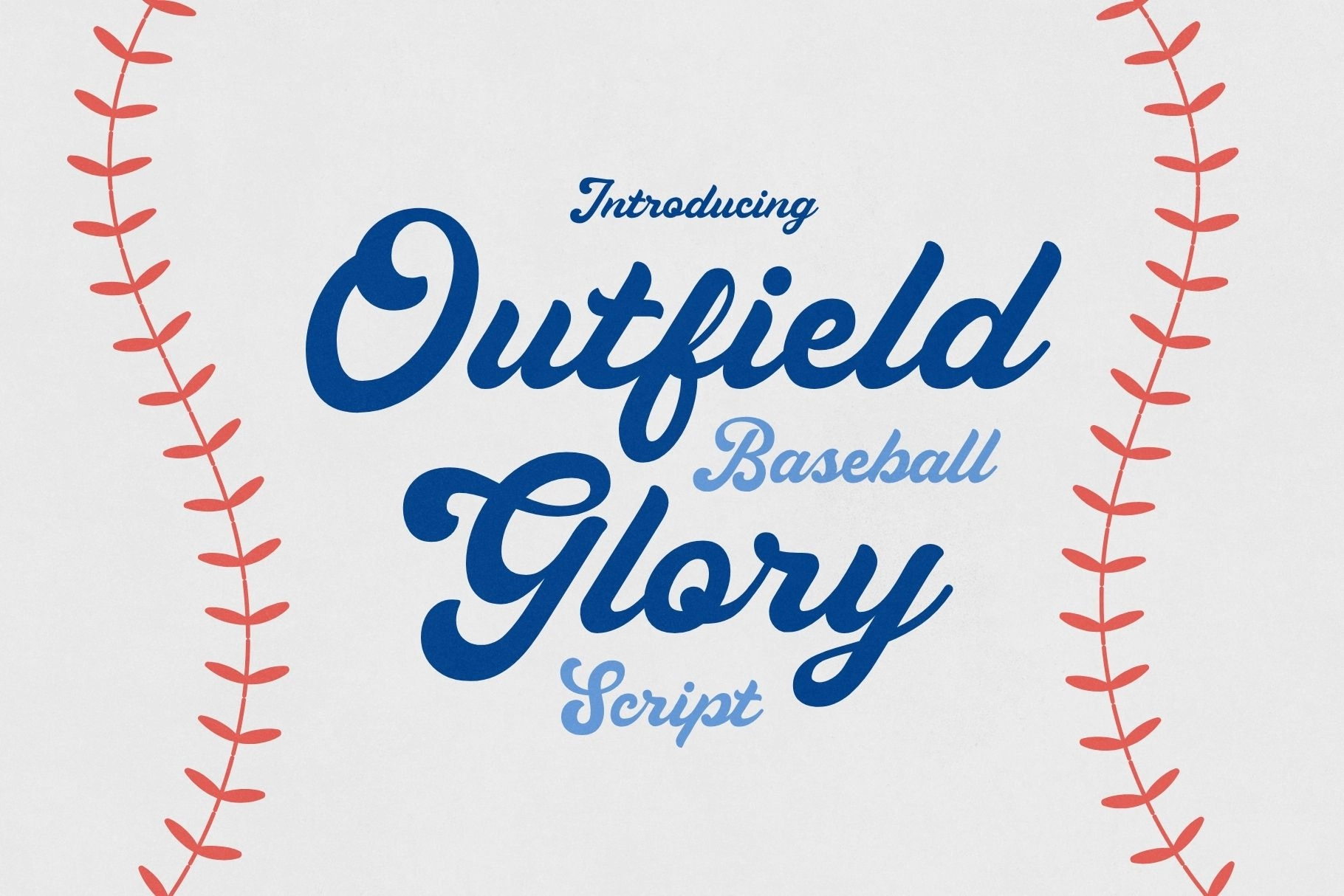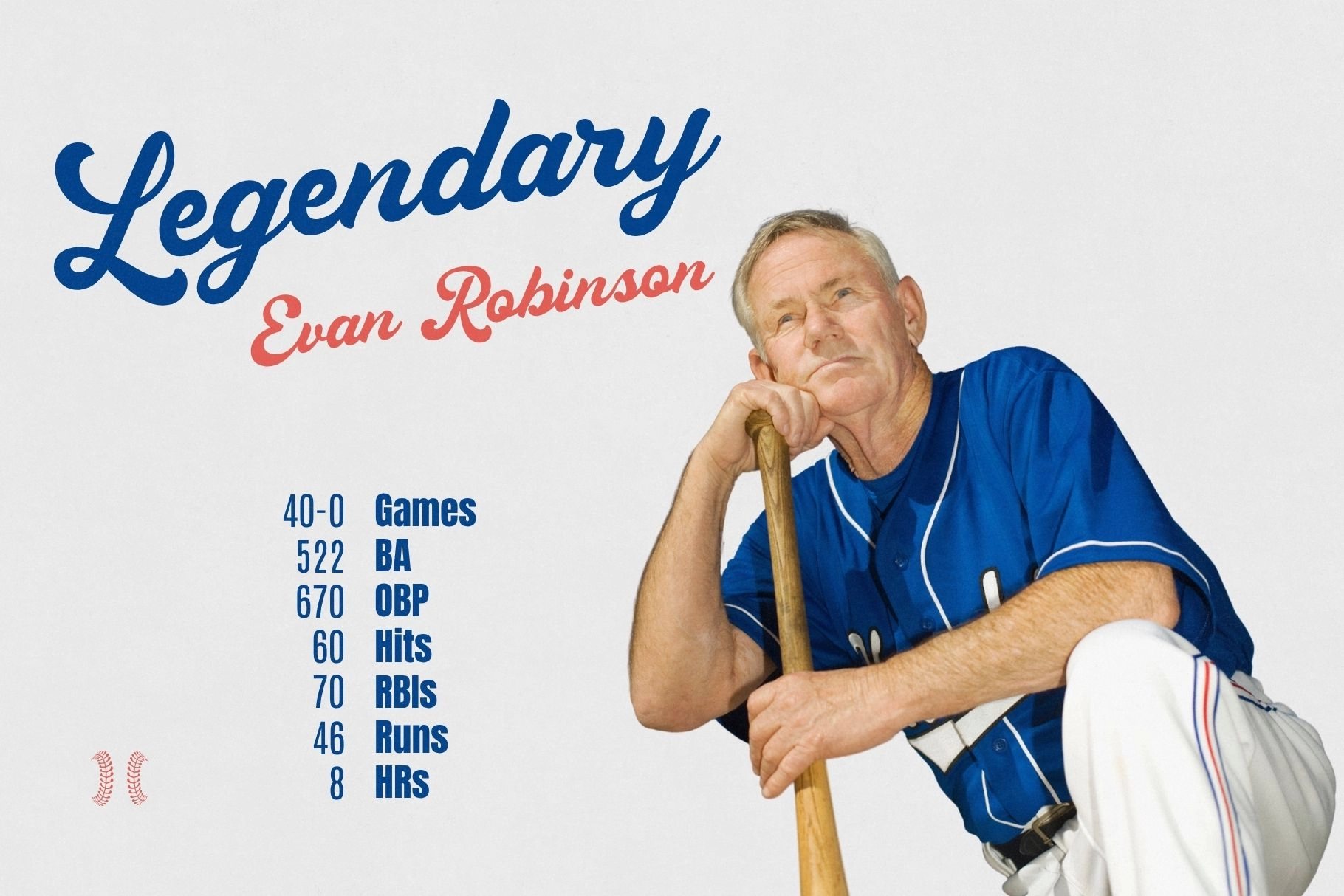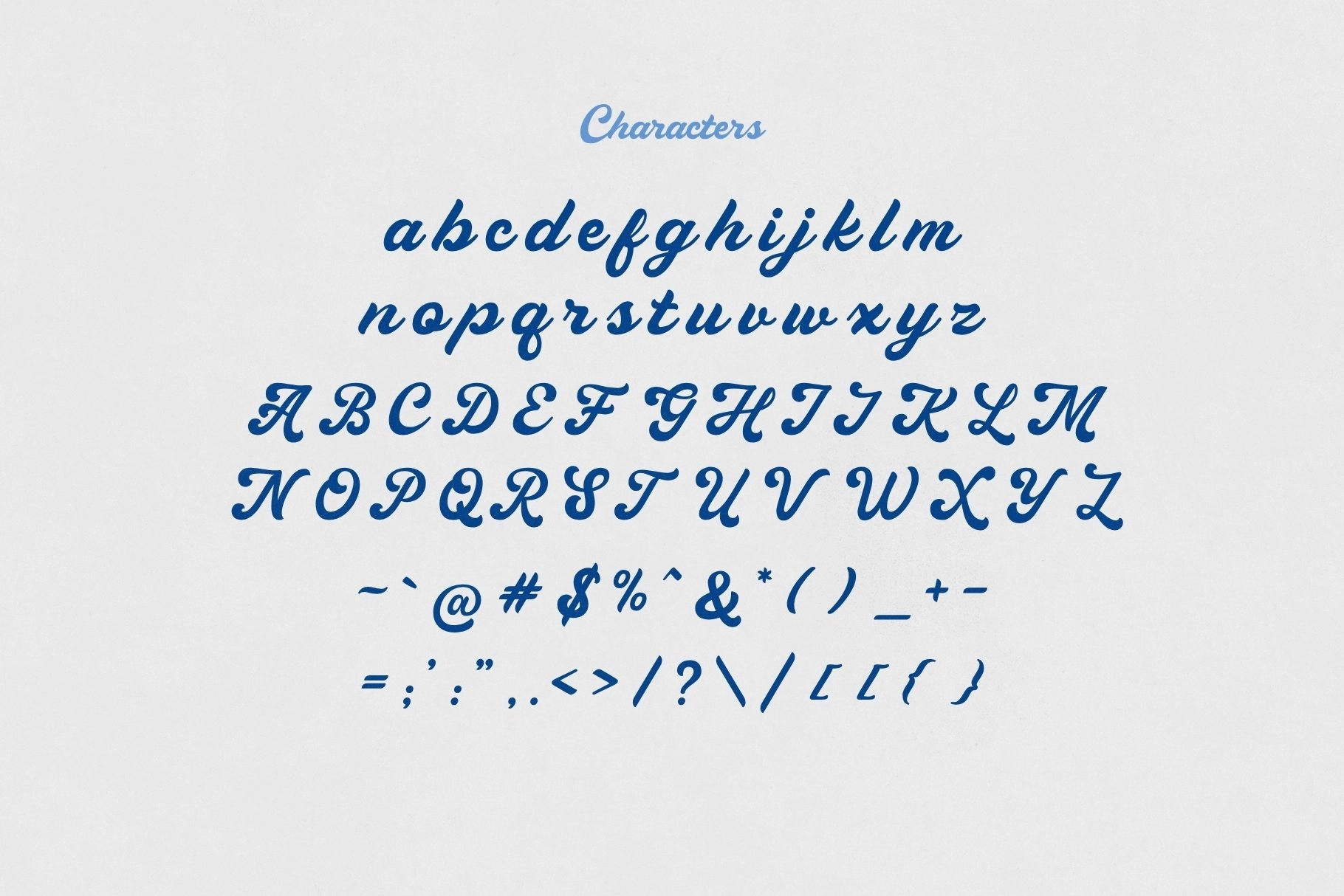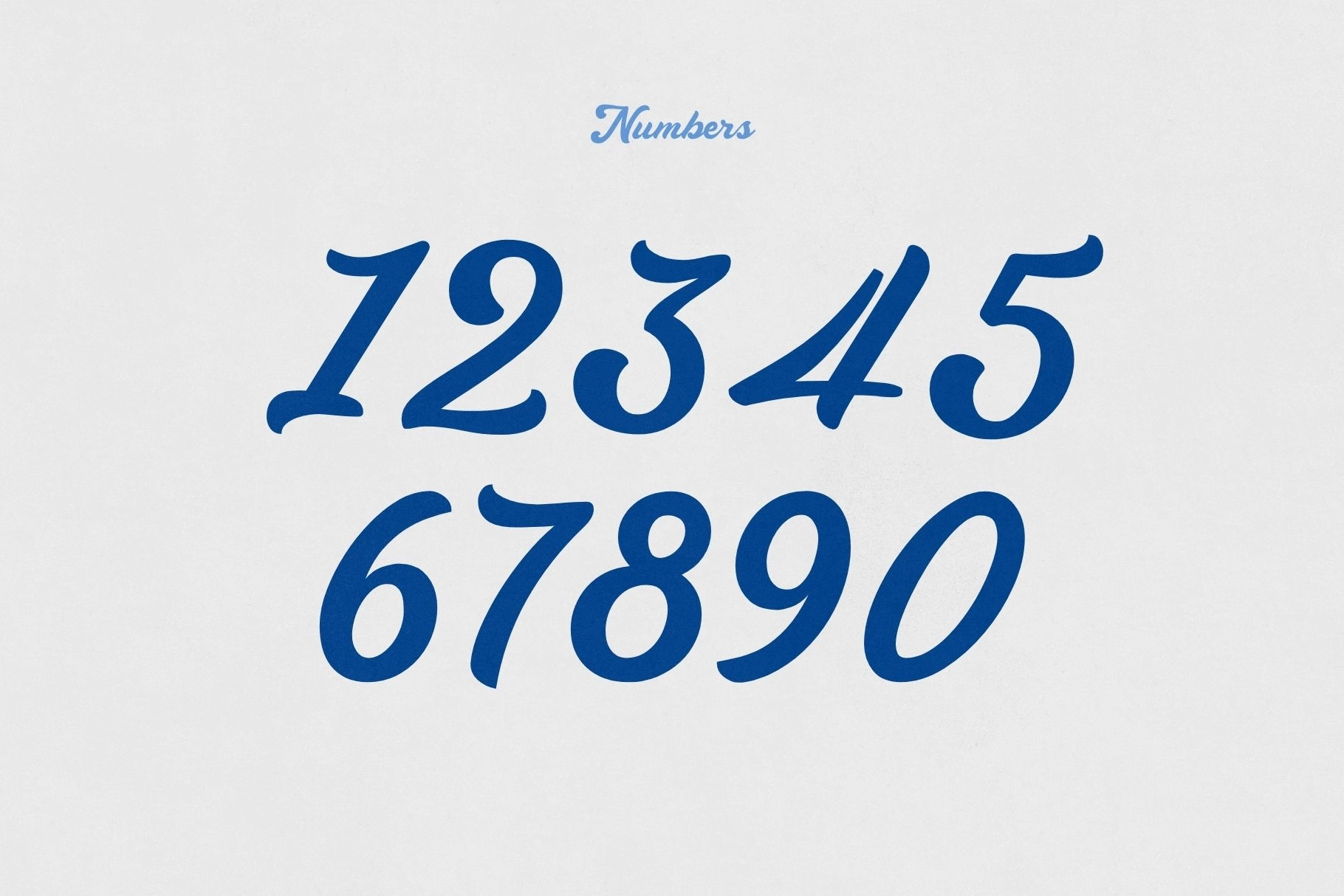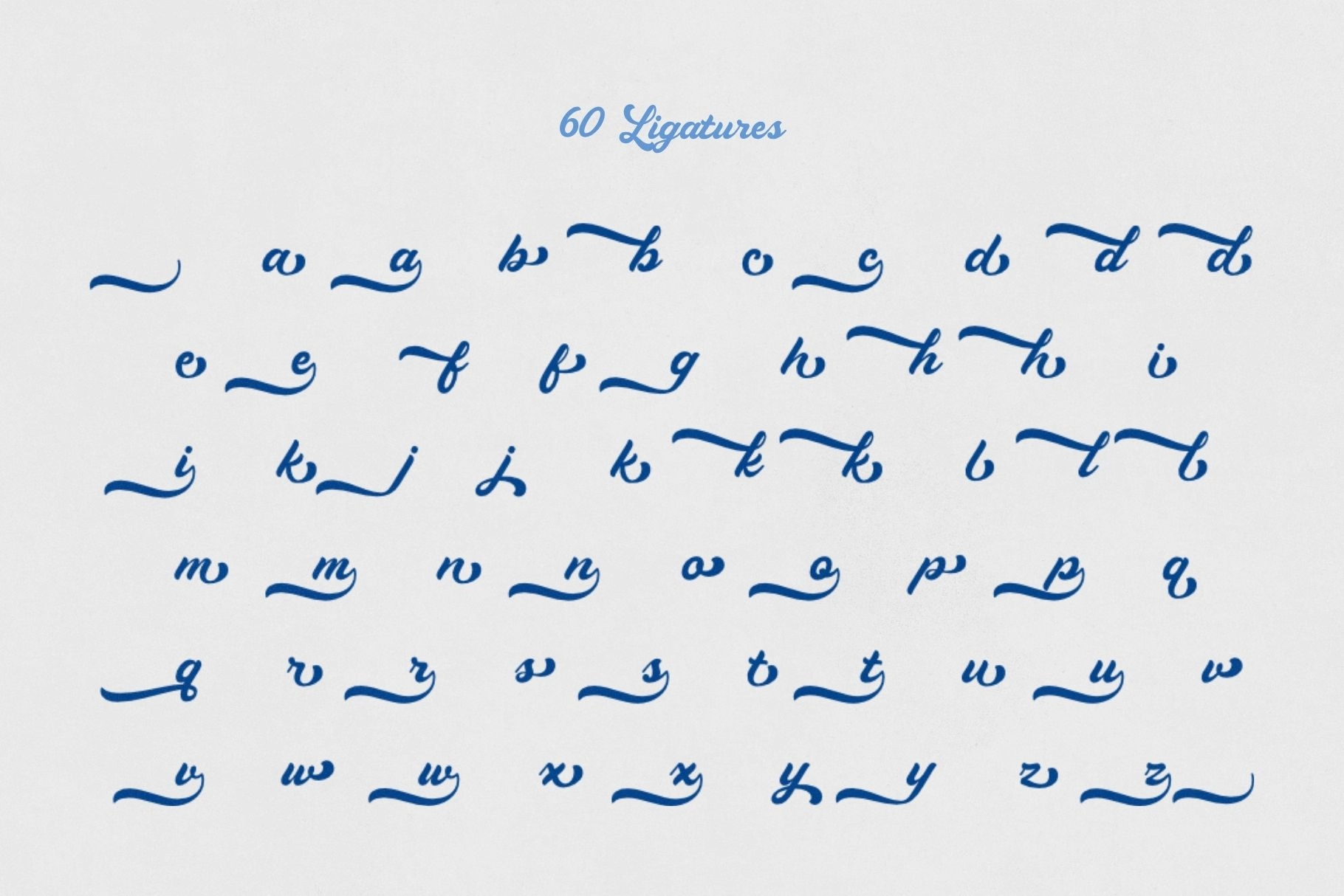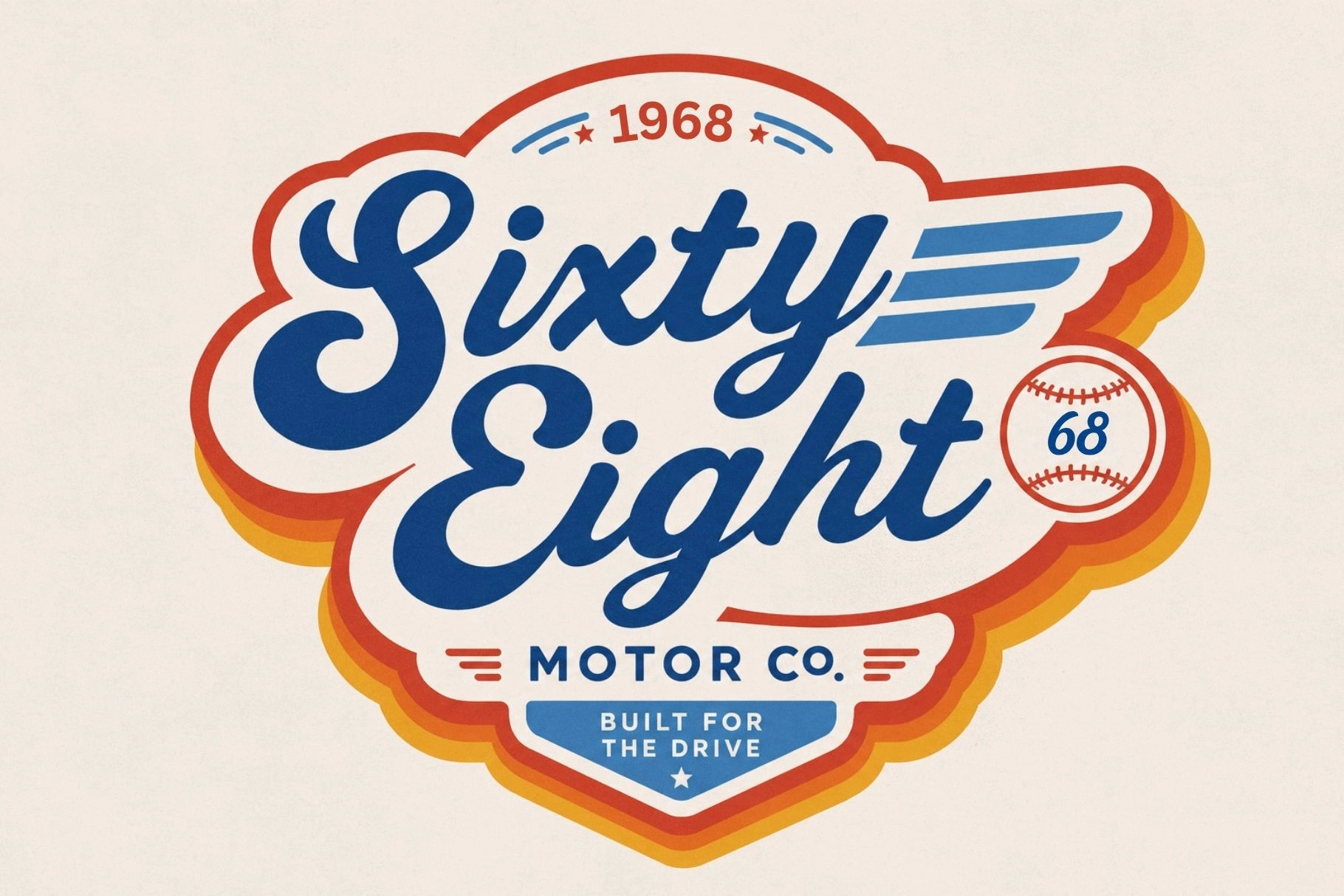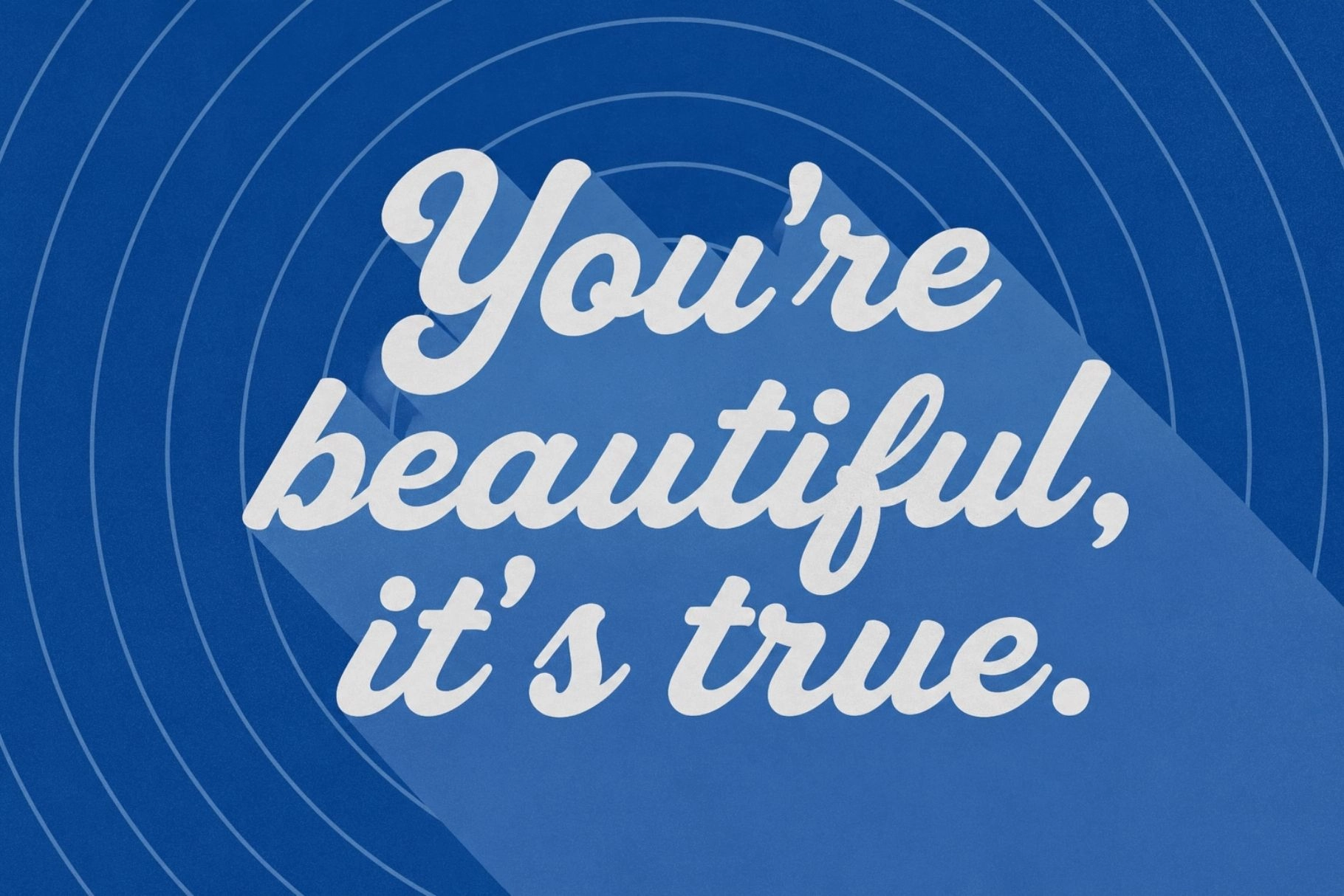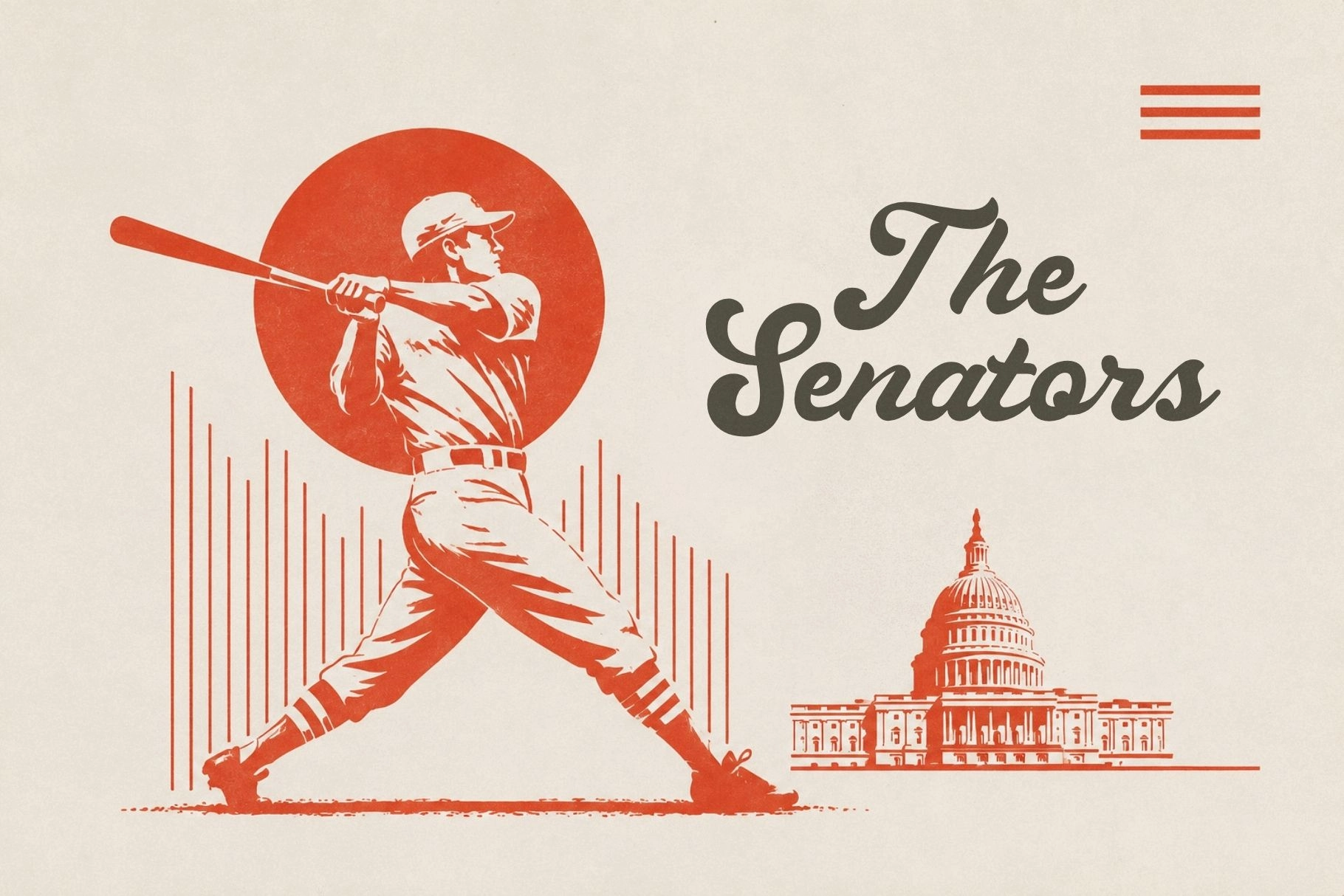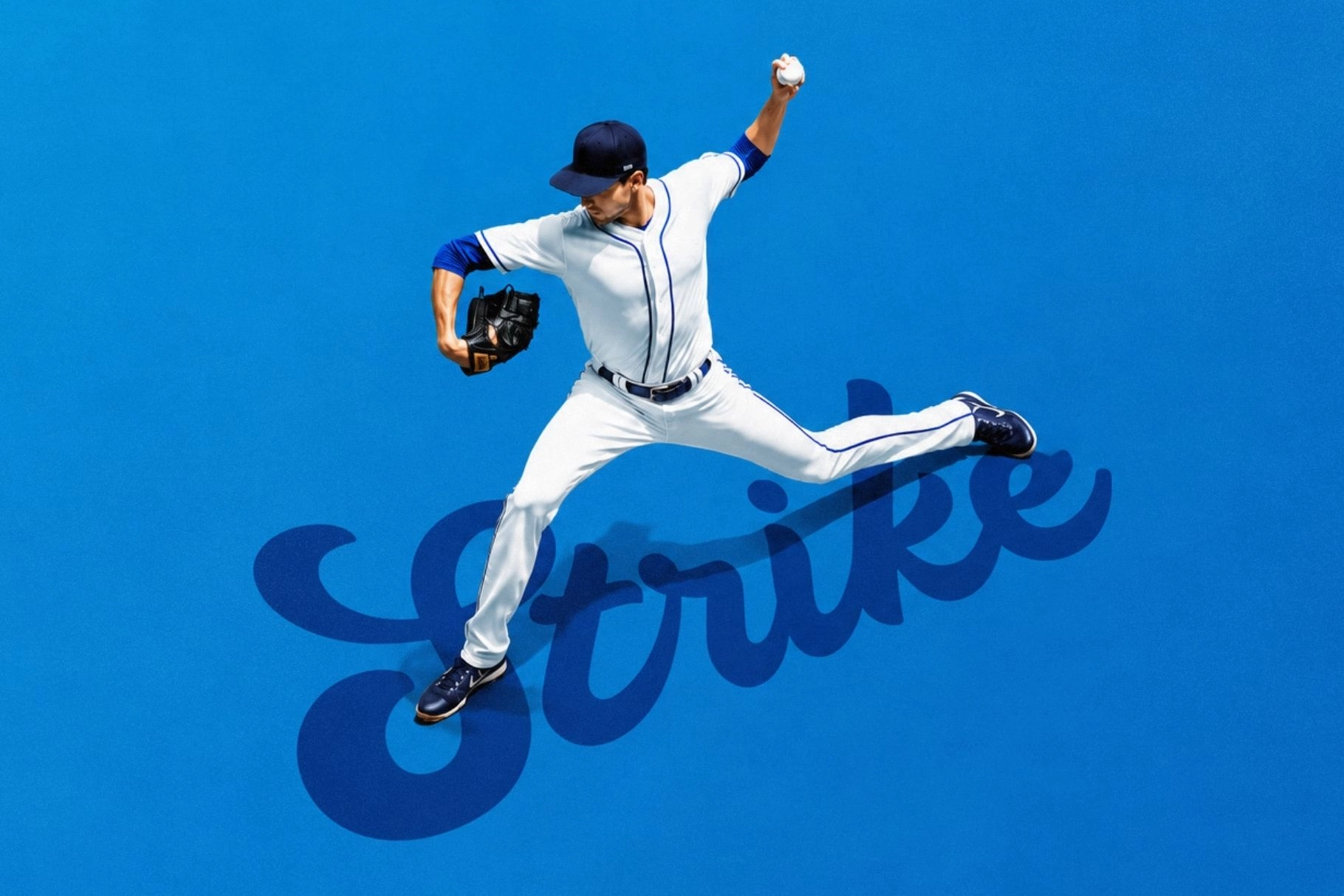
Outfield Glory - Vintage Baseball Script Font
Outfield Glory
Outfield Glory is a vintage script font with confident swash curves, connected lowercase strokes, and a bold retro baseball spirit. Wide loops and rounded terminals give the letters an energetic rhythm, closer to hand-painted dugout signage than a clean digital script.
Outfield Glory works best in short, punchy team names and headline type, where the swashes and bonus alternates can stretch across a logo or jersey print. Use it for baseball logos, team jerseys, T-shirts, hats, posters, product packaging, greeting cards, sports merchandise, event promotions, and retro-inspired signage.
- uppercase & lowercase;
- numerals, punctuation & symbols;
- 60 ligatures & bonus swash alternates.